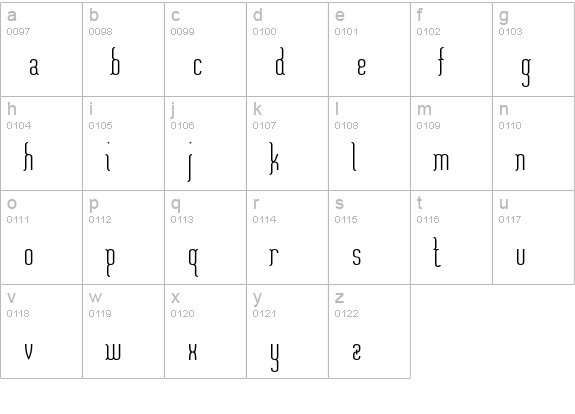
Misfortune Font Details
Misfortune font is a hauntingly beautiful typeface that exudes an air of mystery and intrigue. Its elegant yet slightly distressed appearance makes it perfect for projects that require a touch of dark elegance. The intricately designed letterforms of Misfortune font will captivate your audience and transport them to a world of enchantment. And the best part? Misfortune font is completely free to download at FontsMarket.com. That's right, you can add this unique and striking font to your collection without spending a dime. So why wait? Download Misfortune font today and unleash its enchanting power in your designs.